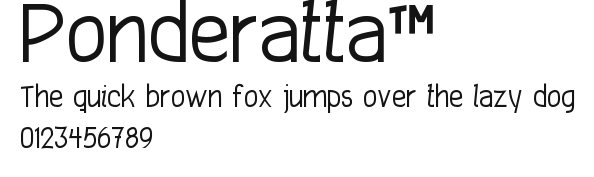
Ponderatta™ Preview
• Font Name: Ponderatta™
• Designer: Yun Gonzalez
About Ponderatta™.ttf
Ponderatta™.ttf is a modern, elegant sans-serif font designed for ultimate readability and visual harmony. Perfect for branding, headlines, web design, and print materials.